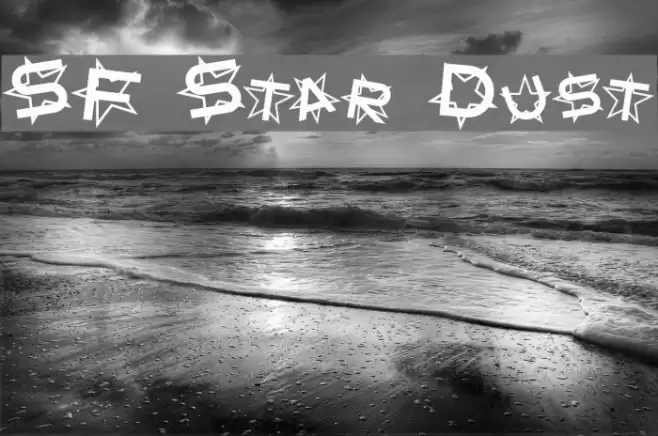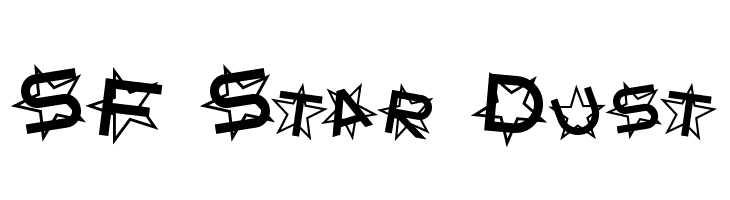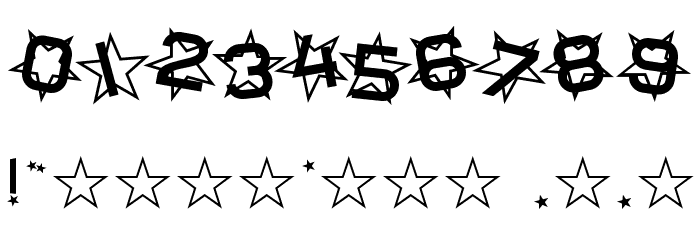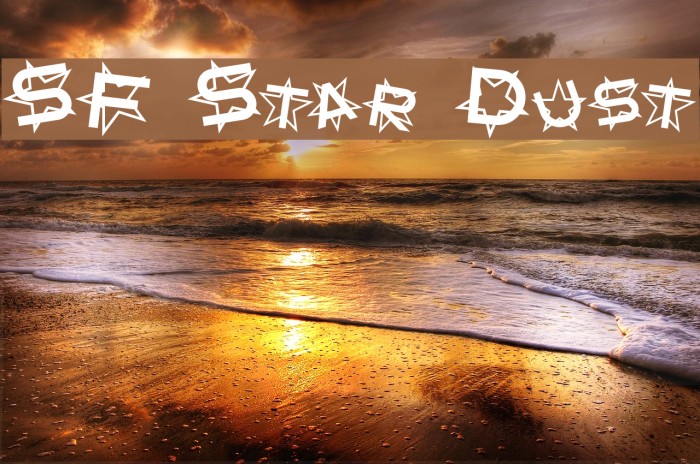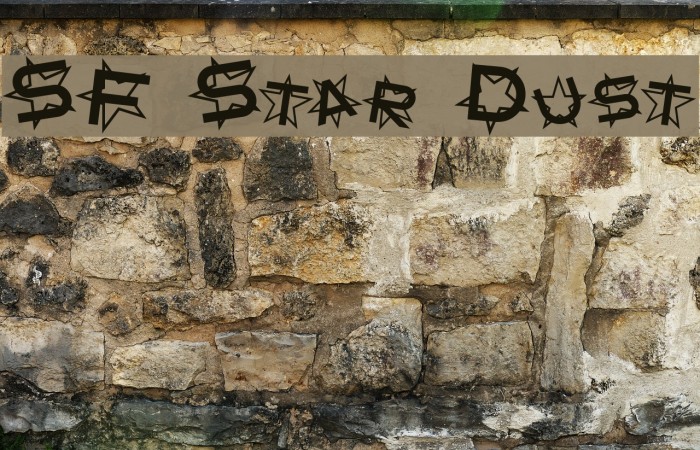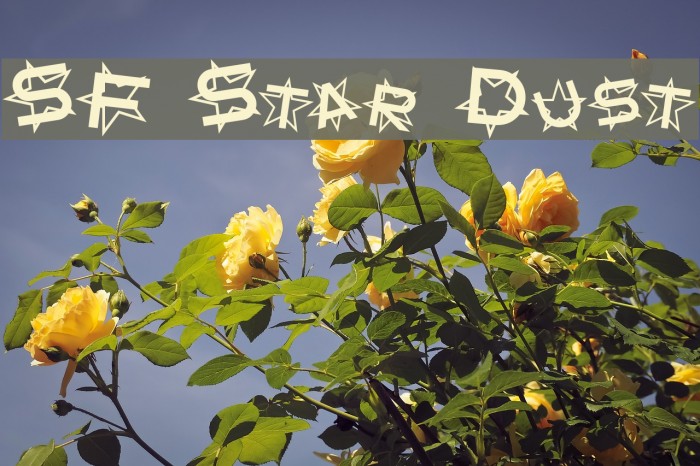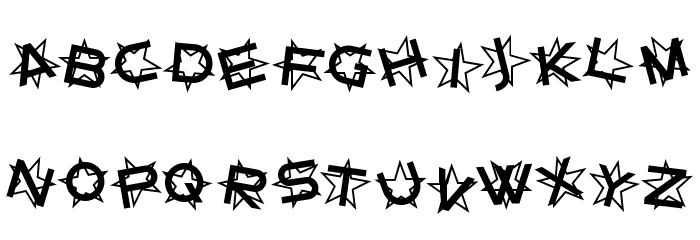
SF Star Dust Font
SF Star Dust Description
This font features a bold, decorative style with each character uniquely integrated into a star-like shape. The letters and numbers are encapsulated within star outlines, giving a playful and dynamic appearance. The design is highly stylized, with sharp angles and a sense of movement, making it ideal for eye-catching displays. The characters are consistent in their thematic presentation, maintaining a cohesive look throughout the alphabet and numerals. The special characters continue the star motif, adding to the font's overall whimsical and energetic feel.
A bold, decorative font with characters encapsulated in star shapes from Decorative fonts.
- Proposed Projects: Ideal for party invitations, children's book covers, event posters, and playful branding.